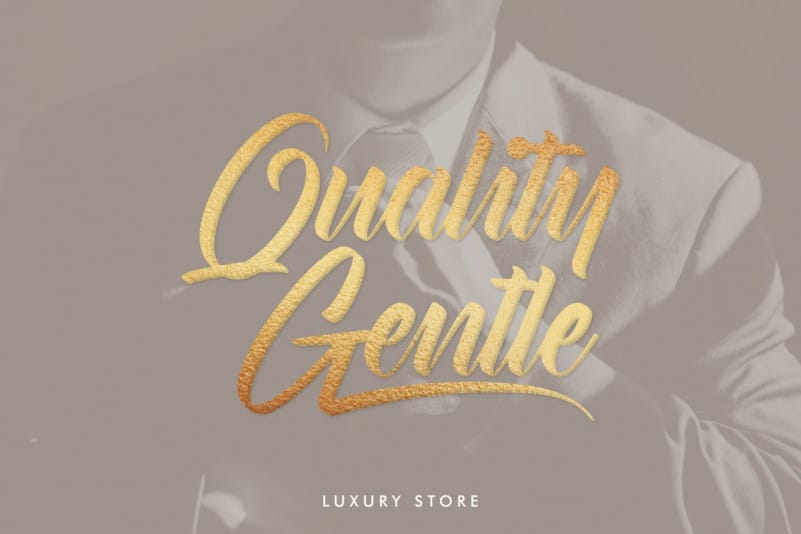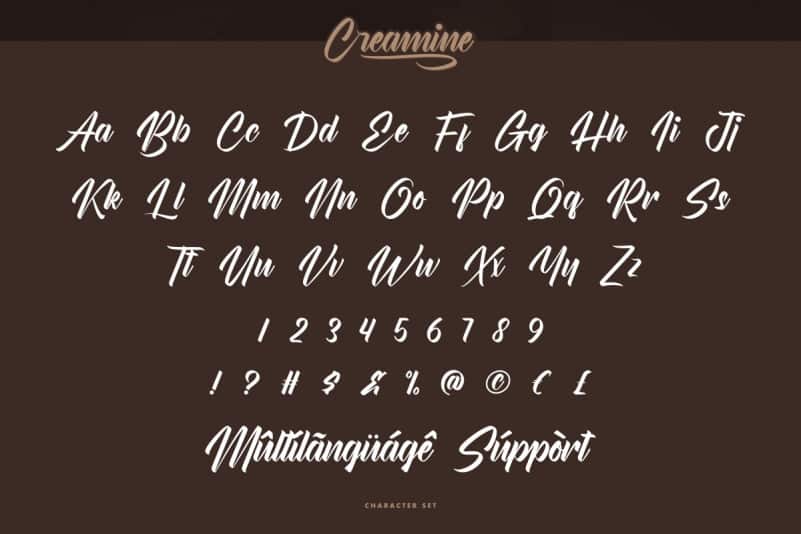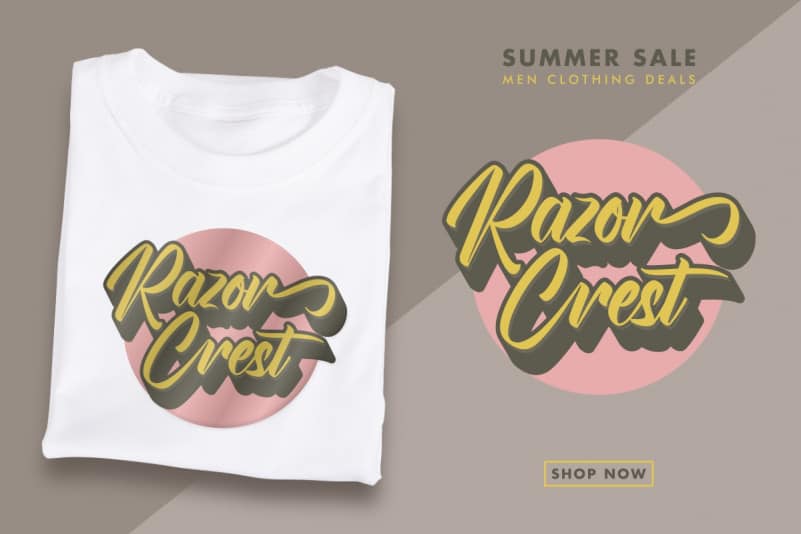
Creamine Calligraphy Font
Creamine Calligraphy Font is a classic lettering calligraphy font. It has unique looks that are beautiful, modern, elegant, luxury, lettering and sophisticated brush font.